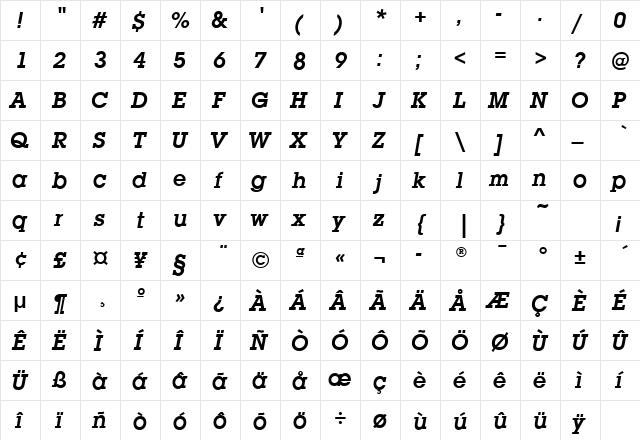
LubalinGraphITCTT Bold Font Preview
LubalinGraphITCTT Bold
LubalinGraphITCTT Bold Font Details
Design Context for LubalinGraphITCTT Typeface
LubalinGraphITCTT takes a measured approach to typography — its balanced proportions and neutral character make it a reliable workhorse for both digital and print work. The heavy weight commands attention and anchors typographic hierarchies.